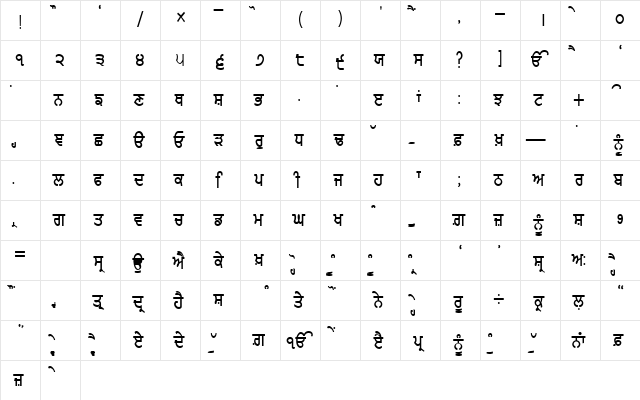
AMRIT A
Design Context for AMRIT Typeface
AMRIT is a composed and adaptable typeface that performs quietly and consistently across a wide range of design contexts.